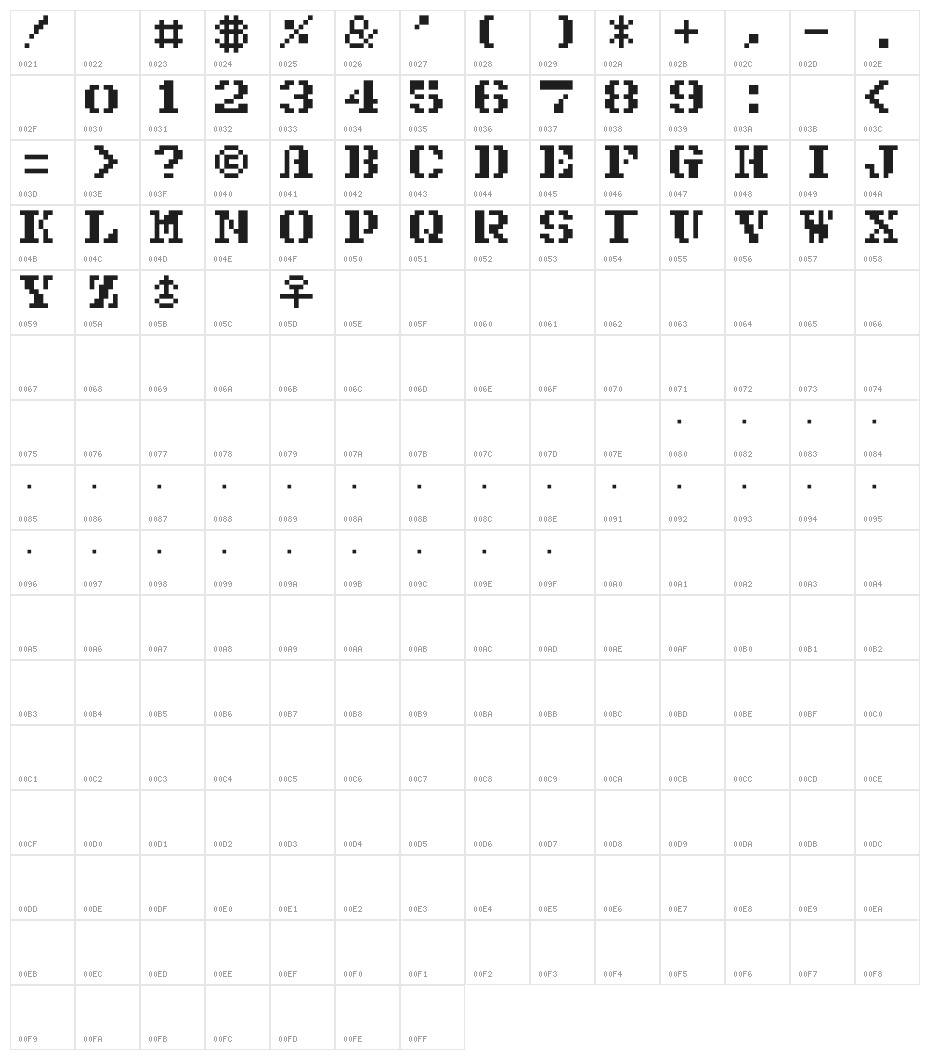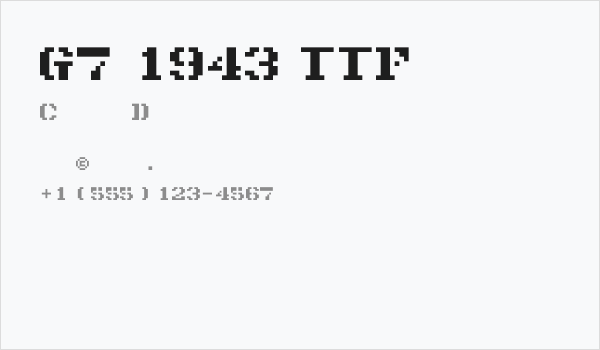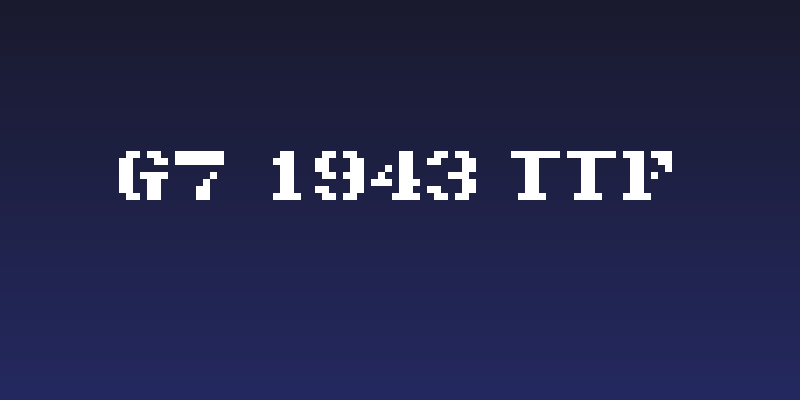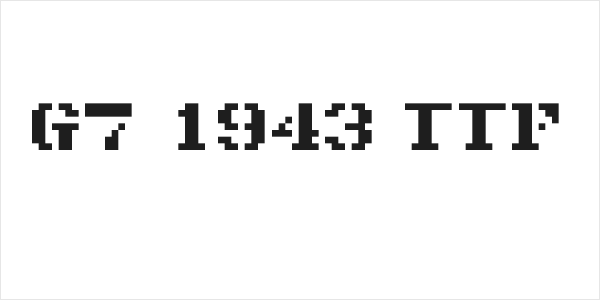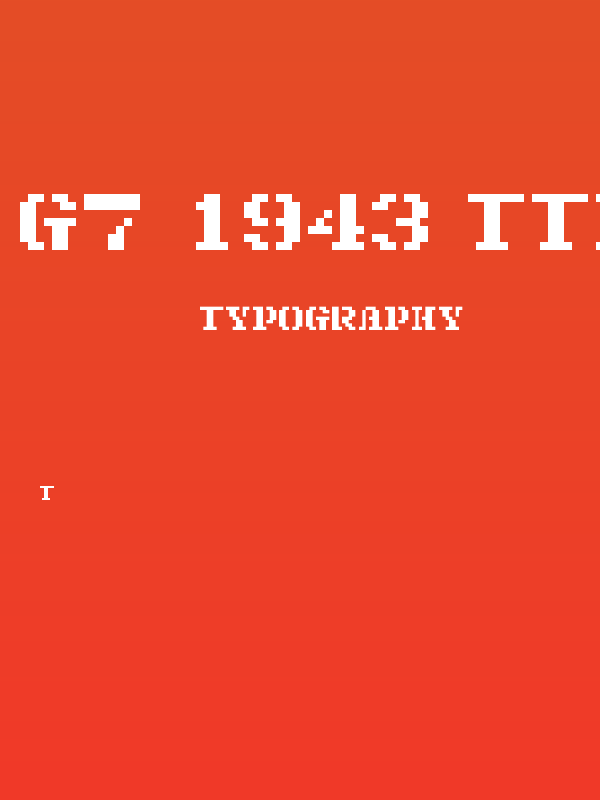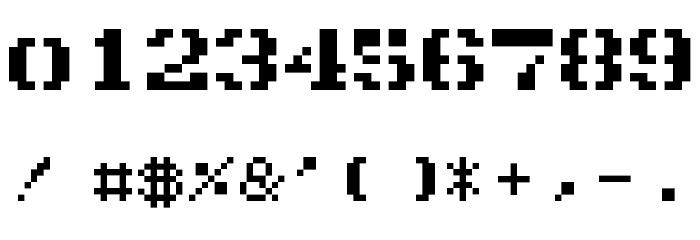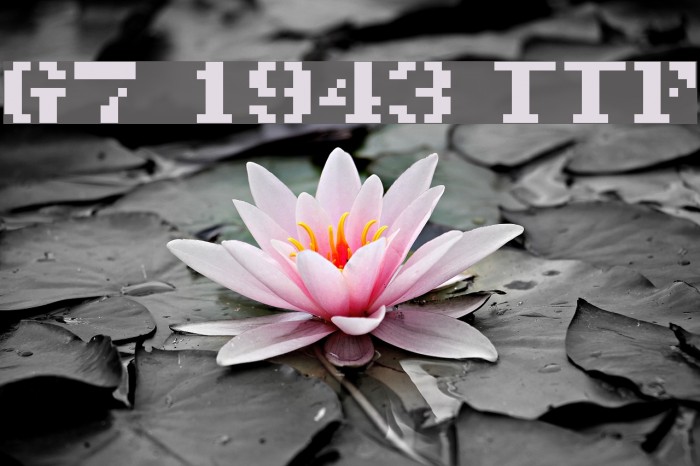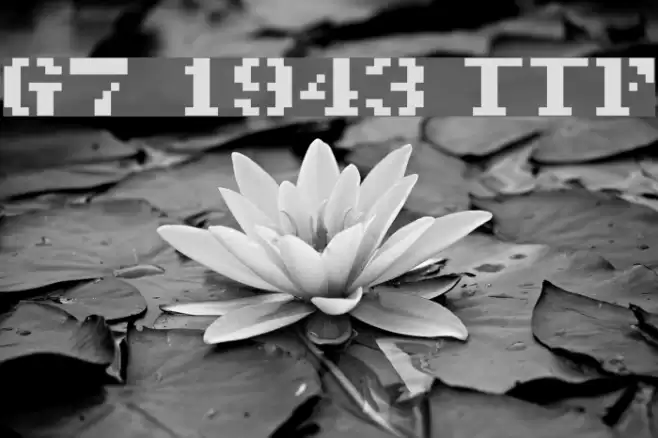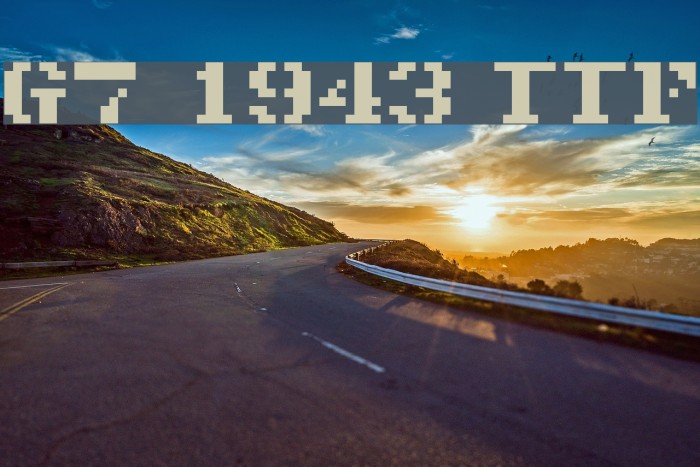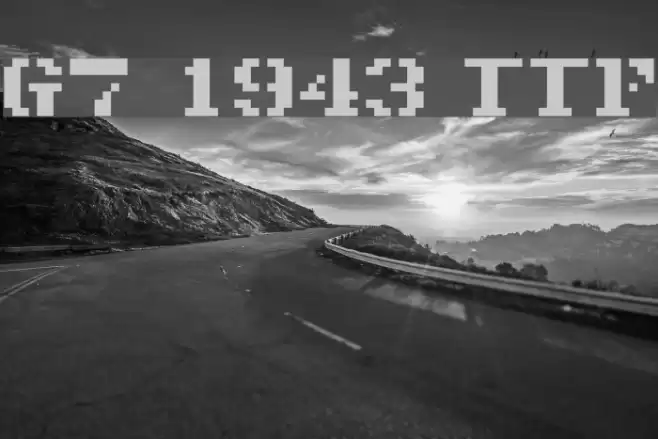
G7_1943 TTF Font
G7_1943 TTF Description
This font features a bold, pixelated design reminiscent of early digital or arcade-style typography. The characters are constructed with a blocky, grid-like structure, giving it a distinctly retro and digital appearance. The uppercase letters are uniform in height, while the lowercase letters maintain a consistent style with slightly smaller proportions. Numbers and special characters follow the same pixelated pattern, ensuring a cohesive look across all glyphs. The font's design is straightforward, with no curves or embellishments, emphasizing its geometric and structured nature. This style is ideal for projects that aim to evoke nostalgia or a vintage digital aesthetic.
| Overall Style | Retro, Digital |
| Use Case | Headlines, Logos, Digital Art |
| Proposed Projects | Ideal for retro video game designs, digital art projects, tech-themed posters, and any creative work that seeks to capture a vintage digital aesthetic. |